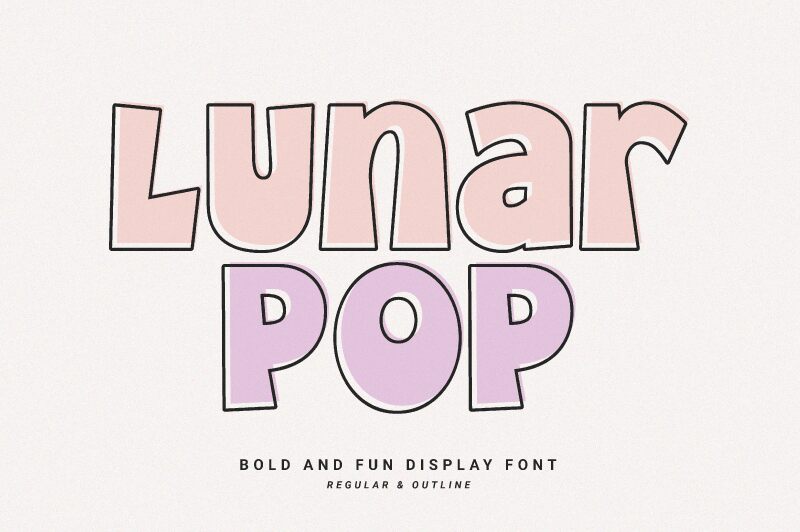
Lunar Pop, designed by Prioritype Co, is an eye-catching display font with an extra-bold weight. This cartoon-inspired typeface brings your designs to life with its playful and vibrant style. Perfect for children's books, posters, and packaging designs, Lunar Pop adds a touch of whimsy and fun to any project.
Its bold strokes and unique letterforms make it ideal for headlines that demand attention. Whether you're creating a captivating logo or designing a lively party invitation, Lunar Pop will surely leave a lasting impression on your audience.